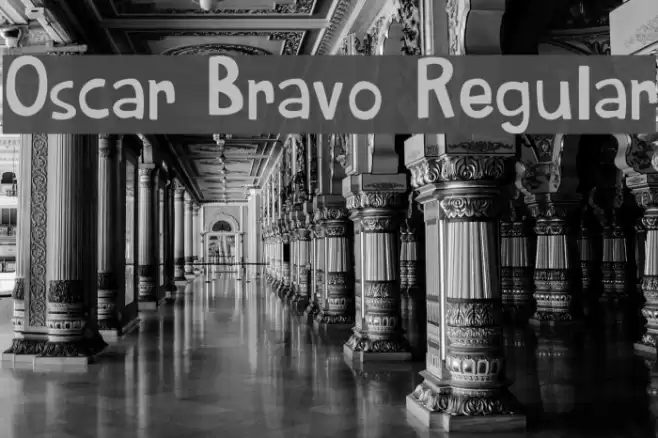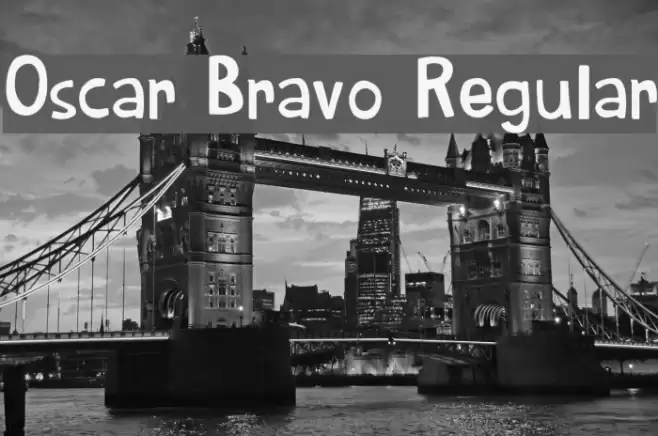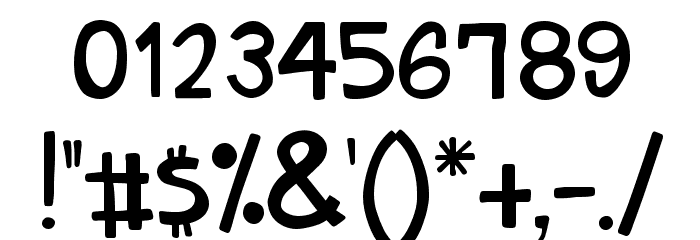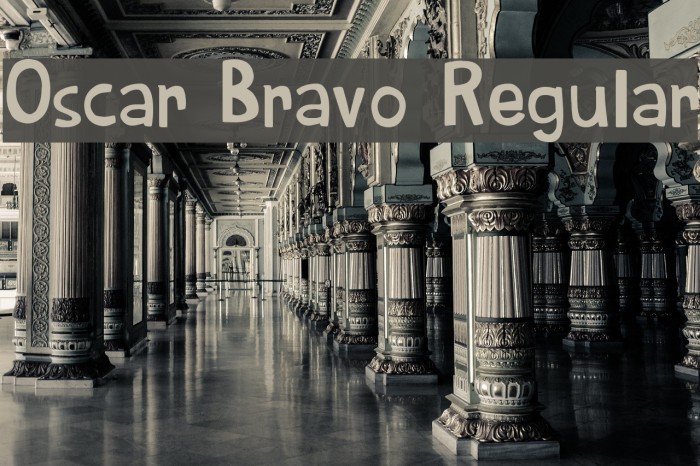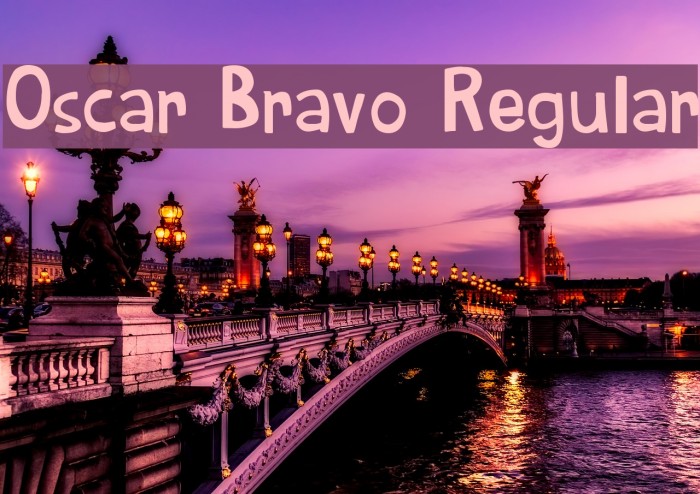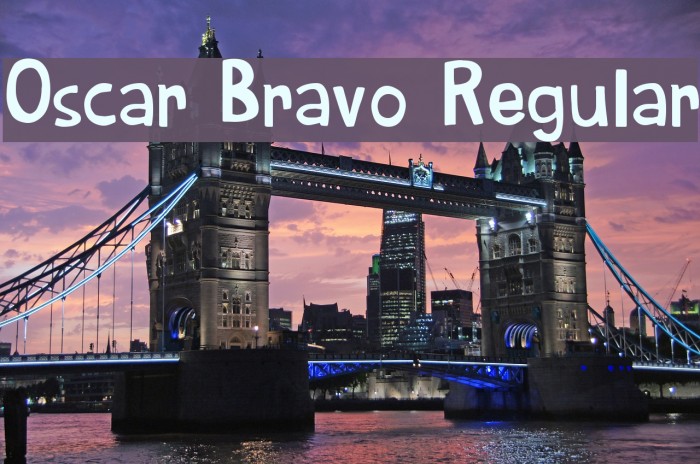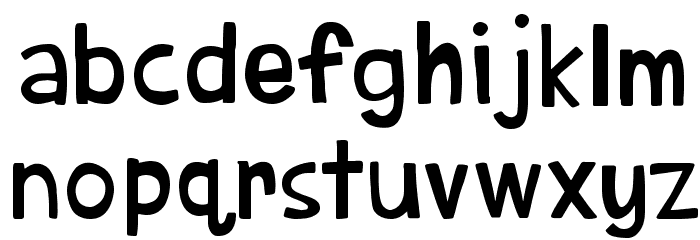
Oscar Bravo Regular Font
Oscar Bravo Regular Description
This playful and bold font features rounded, slightly irregular characters that give it a friendly and approachable appearance. The uppercase letters are robust and slightly wider, while the lowercase letters maintain a consistent flow with a touch of whimsy. The numerals are clear and easy to read, matching the overall playful style. Special characters are well-integrated, maintaining the font's cohesive look. The font's design is ideal for projects that require a fun and informal tone, making it suitable for children's books, playful branding, or casual invitations.
A playful, bold font with rounded, slightly irregular characters from Uncategorized fonts.
- Proposed Projects: Children's books, playful branding, casual invitations, posters, and social media graphics.
- Overall Style: Playful, Casual